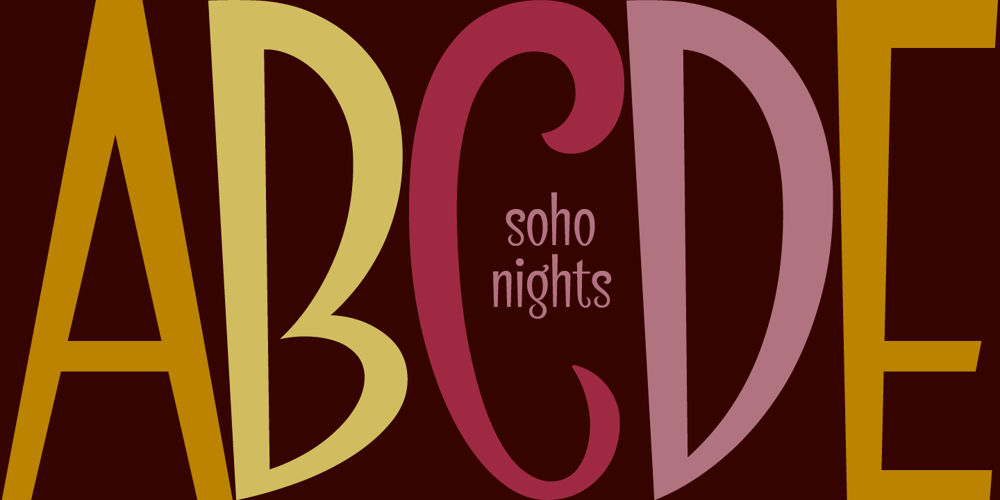
SoHo Nights BF Font Family was designed by John Bomparte and published by Bomparte’s Fonts. SoHo Nights BF contains 1 styles and family package options. Named after the trendy New York City locale, SoHo Nights BF features sensuous curves and tapering lines that combine to create a unique new look that’s a little bit art deco and a little bit art nouveau. The font also exhibits attributes that can be described as cartoon-like, and even “spooky” when seen in short blocks of large text. Use SoHo Nights BF when your projects require that certain “air of mystique”.